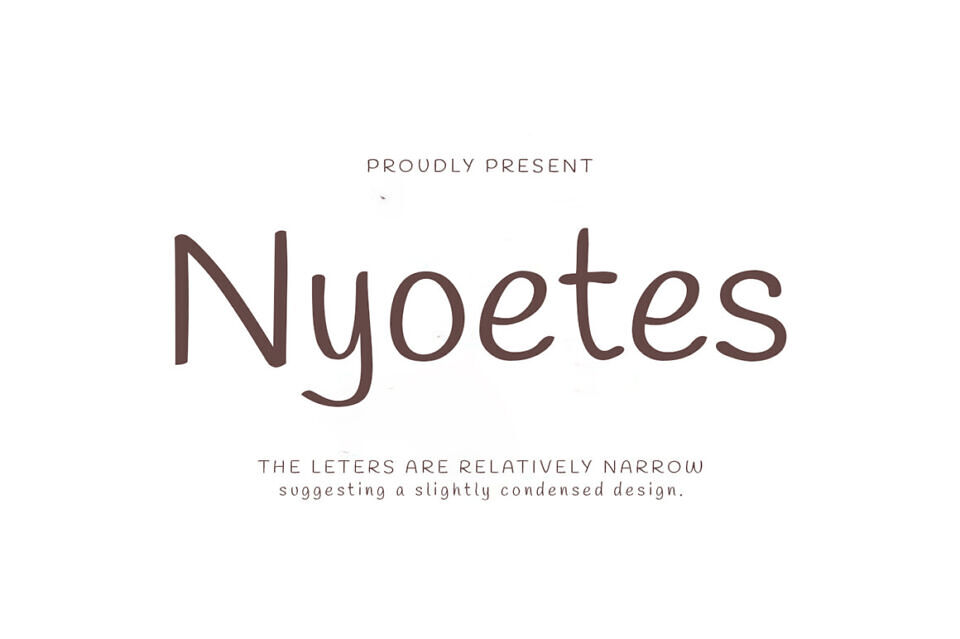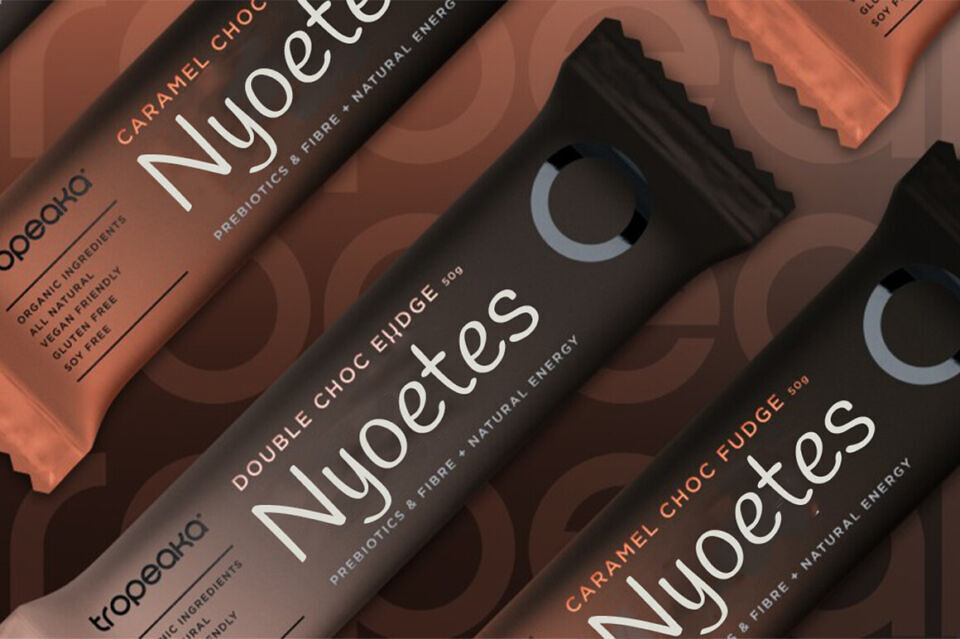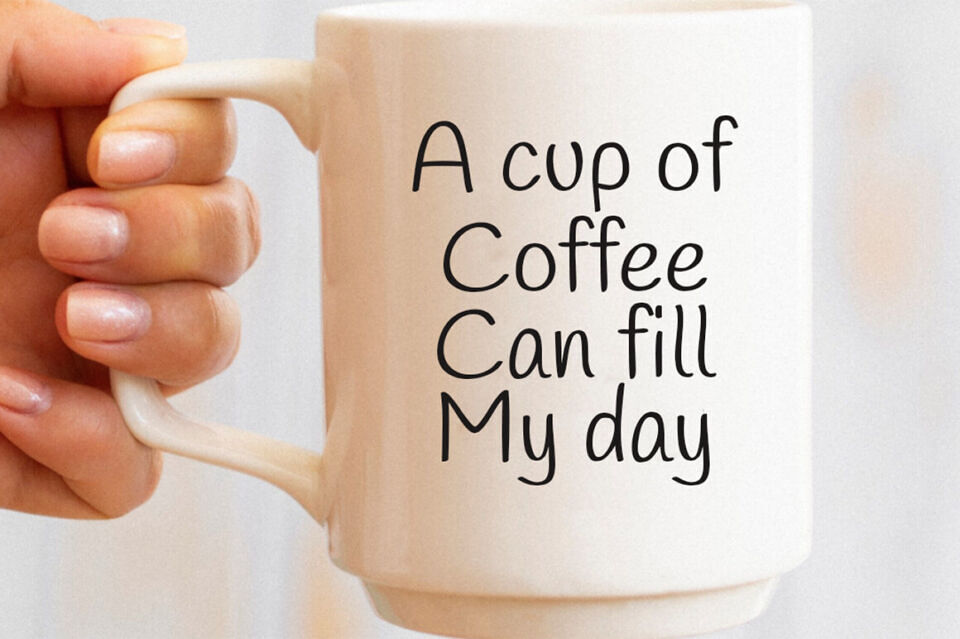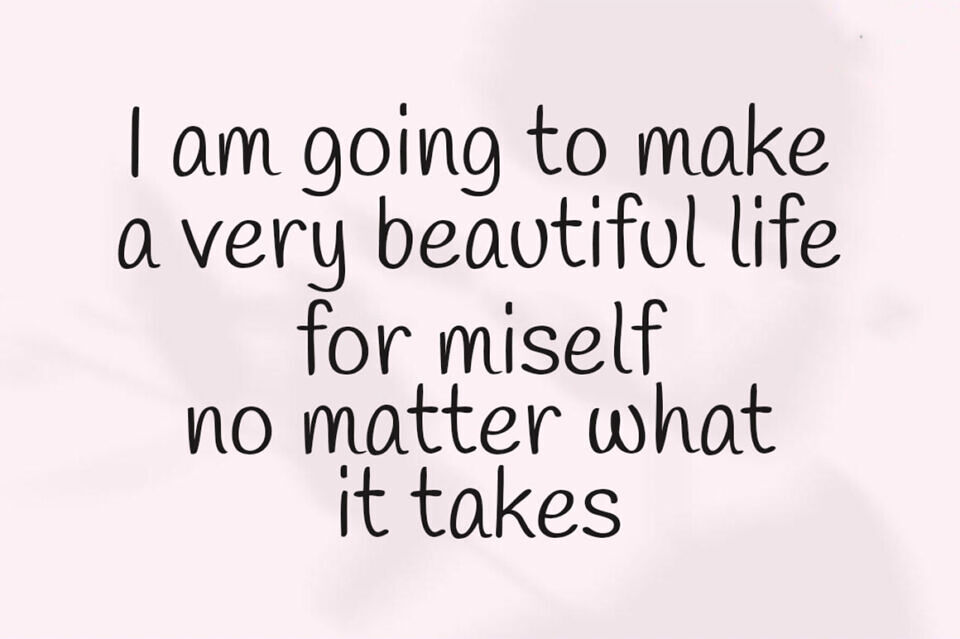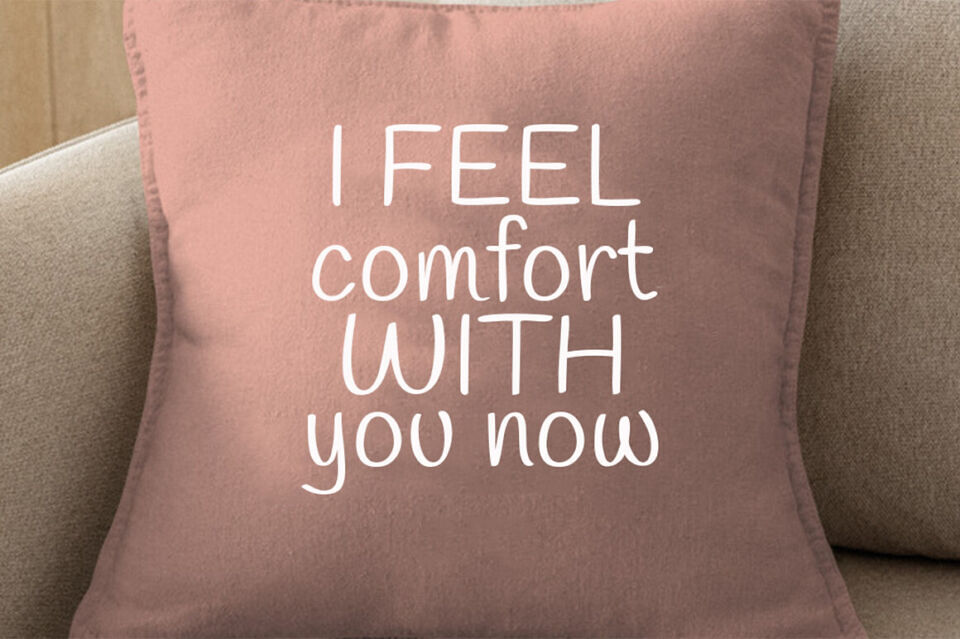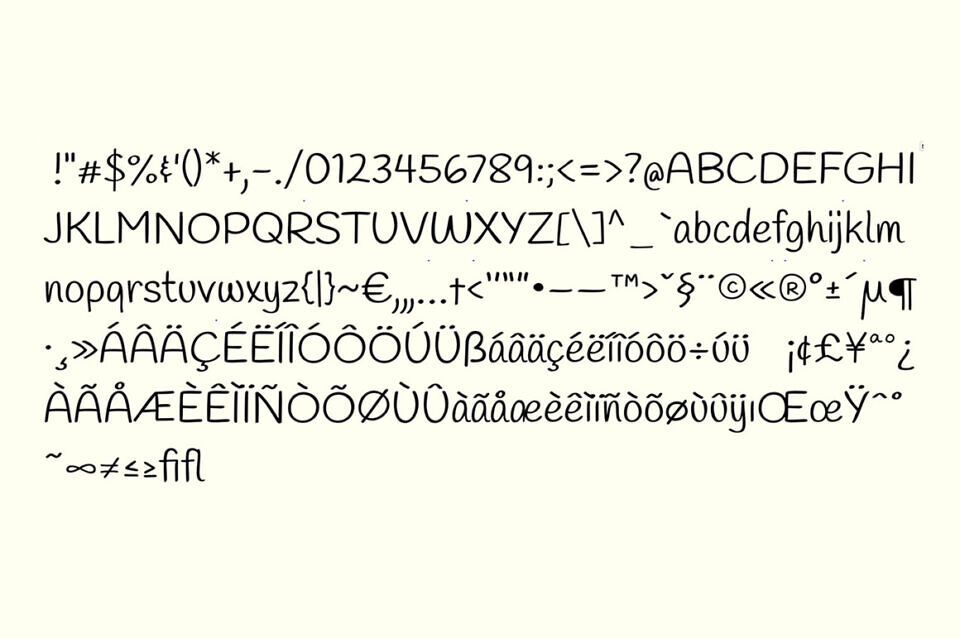
Nyoetes is a whimsical wanderer in the world of typography. Its slightly condensed, hand-drawn letters dance with a charming irregularity, like a friendly conversation overheard in a sun-drenched café. Perfect for adding a touch of playful personality to your designs, “Nyoetes” whispers stories of warmth and approachability, without taking itself too seriously.